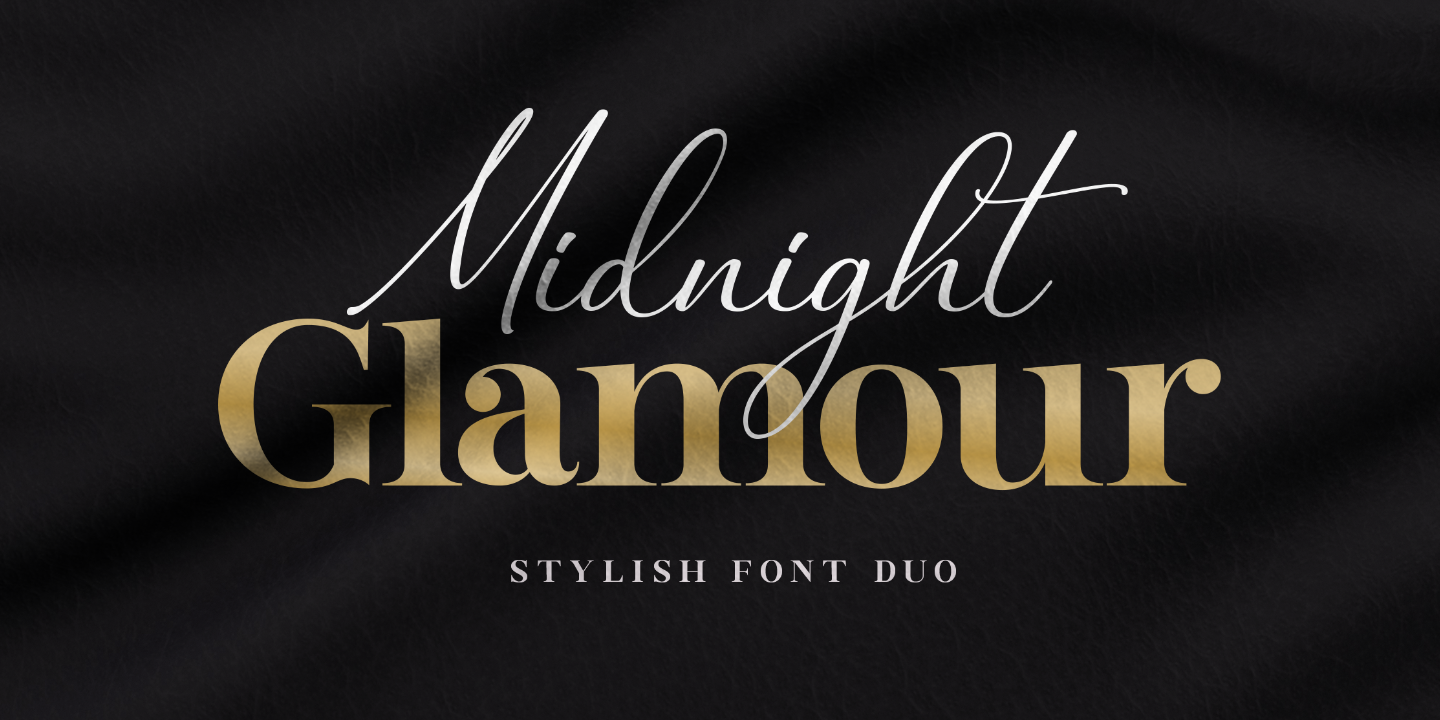
Midnight Glamour Font is perfect for luxurious nightlife branding, upscale evening event promotions, sophisticated cocktail lounge logos, high-end fashion magazines, glamorous beauty campaigns, exclusive nightclub graphics, elegant after-dark marketing, and premium entertainment designs. This captivating typeface excels in applications requiring nocturnal elegance and sophisticated allure that captures the essence of midnight luxury and glamorous nighttime experiences.
What makes Midnight Glamour Font exciting is its seductive sophistication that perfectly embodies the allure of midnight luxury and glamorous nighttime elegance through dramatically styled letterforms. The font features sleek character construction with sophisticated curves and glamorous presence that instantly evokes feelings of exclusivity, elegance, and after-dark sophistication perfect for brands targeting upscale nighttime markets and luxury entertainment experiences.
The Midnight Glamour Font family includes elegant weights and stylish variations with glamorous decorative elements, offering designers comprehensive tools for creating sophisticated nighttime compositions. The family provides consistent glamorous aesthetic with varying elegance levels for versatile luxury communications and upscale entertainment projects requiring genuine midnight sophistication and glamorous character appeal.
The elegantly crafted letterforms of Midnight Glamour Font ensure optimal visual impact while maximizing glamorous sophistication and midnight luxury appeal, making it ideal for upscale nightlife marketing, luxury beauty packaging, and exclusive entertainment communications. This sophisticated typeface combines midnight elegance with contemporary technical standards for outstanding performance in modern design environments requiring authentic glamour character and sophisticated after-dark presence.